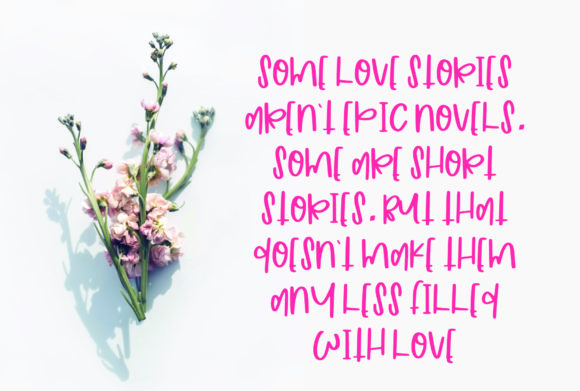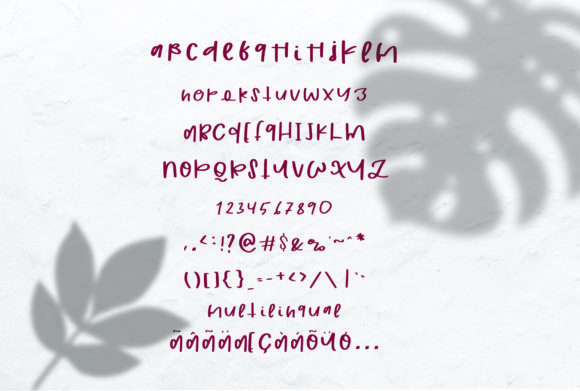
Love Sweets Font
About Love Sweets Font
Love Sweets is a unique handwritten font. It is perfectly suited for stationery, logo, typography quotes, magazine or book cover, website header, clothing, branding, packaging and more.